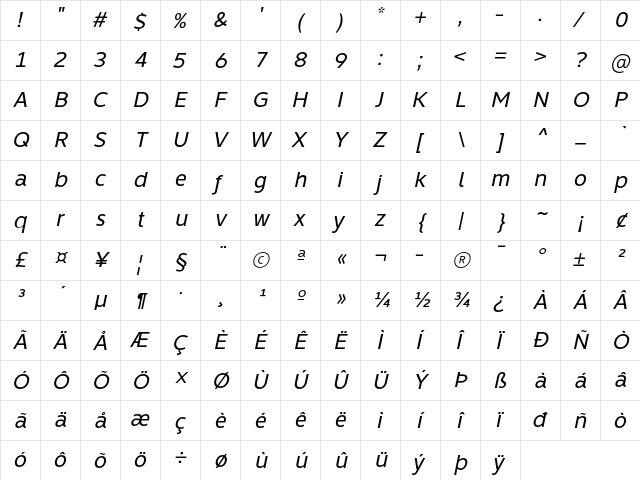
Learn Share Colaborate Italic
| Foundry | 7NTypes |
| Designer | Situjuh Nazara |
Design Context for Learn Share Colaborate Typeface
Learn Share Colaborate offers clean, dependable letterforms without strong stylistic allegiance, making it a practical choice for designers who need flexibility. The dynamic lean of this cut emphasises speed and emphasis in any layout.
Pro Tip: Try Learn Share Colaborate for annotation and caption copy alongside an upright companion — the contrast in angle creates a dynamic but ordered typographic system.